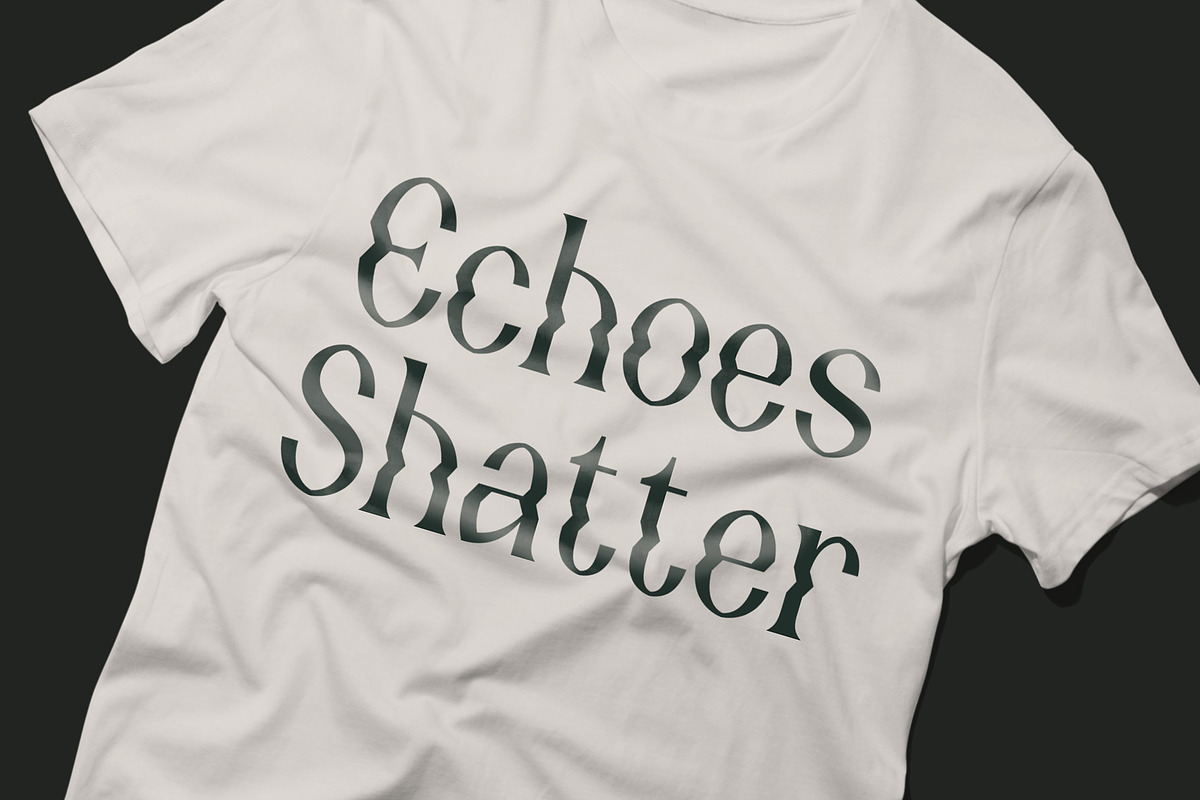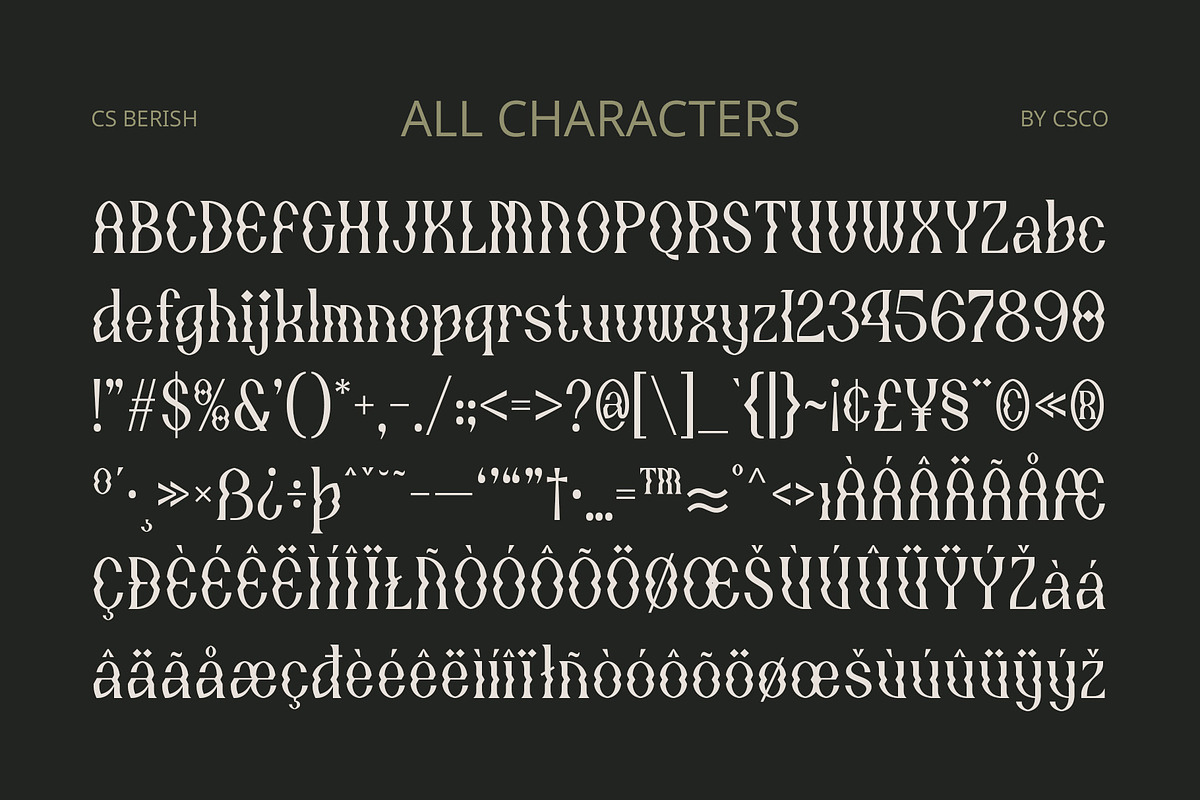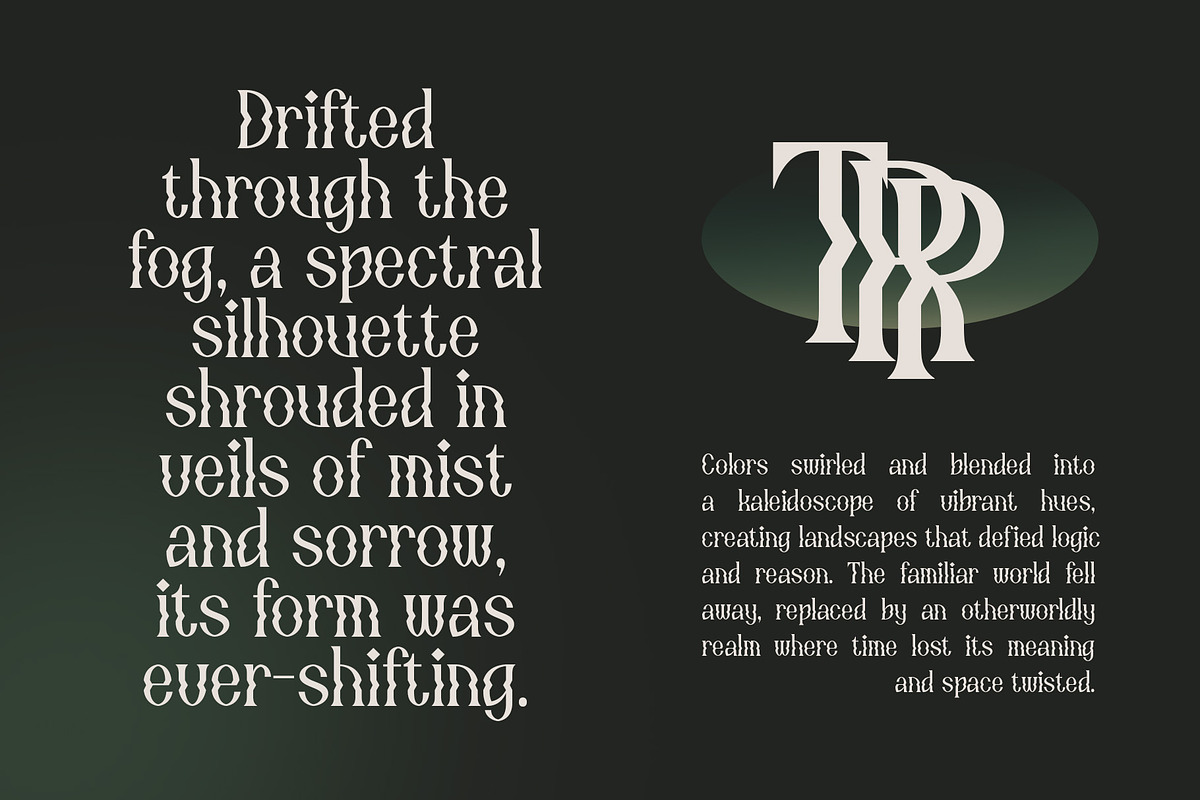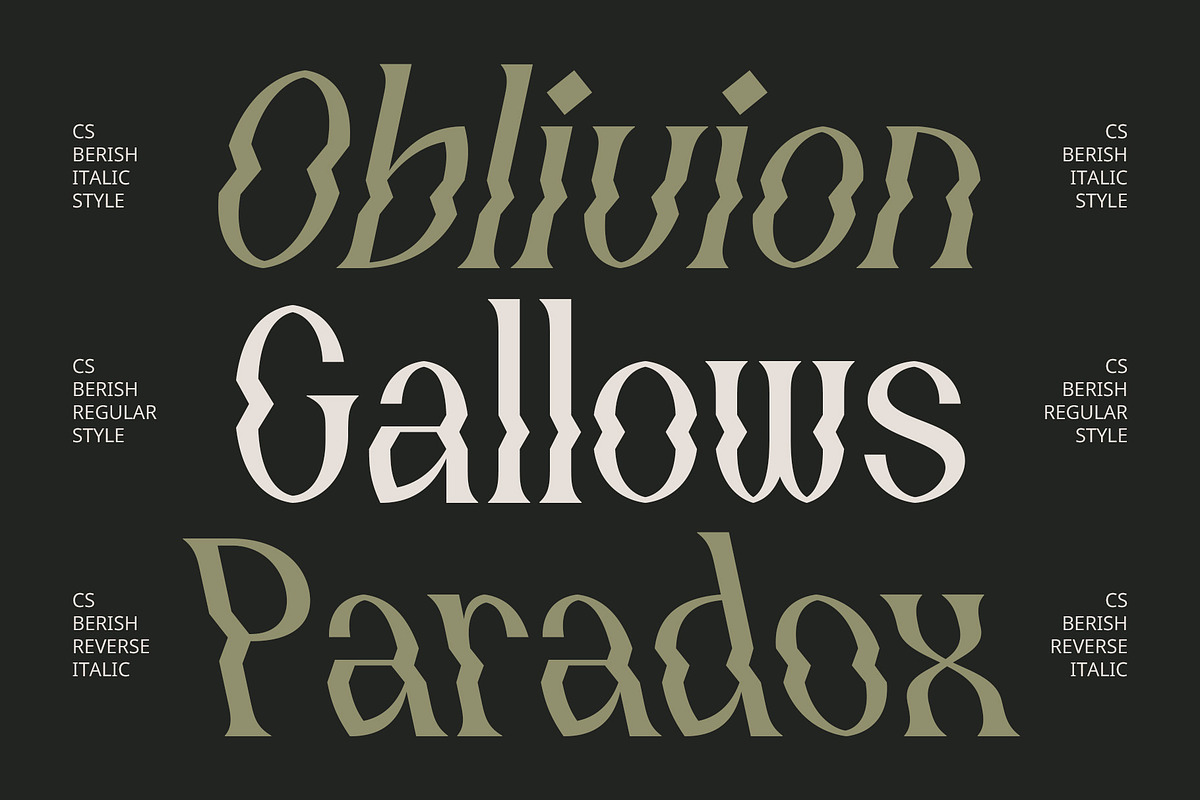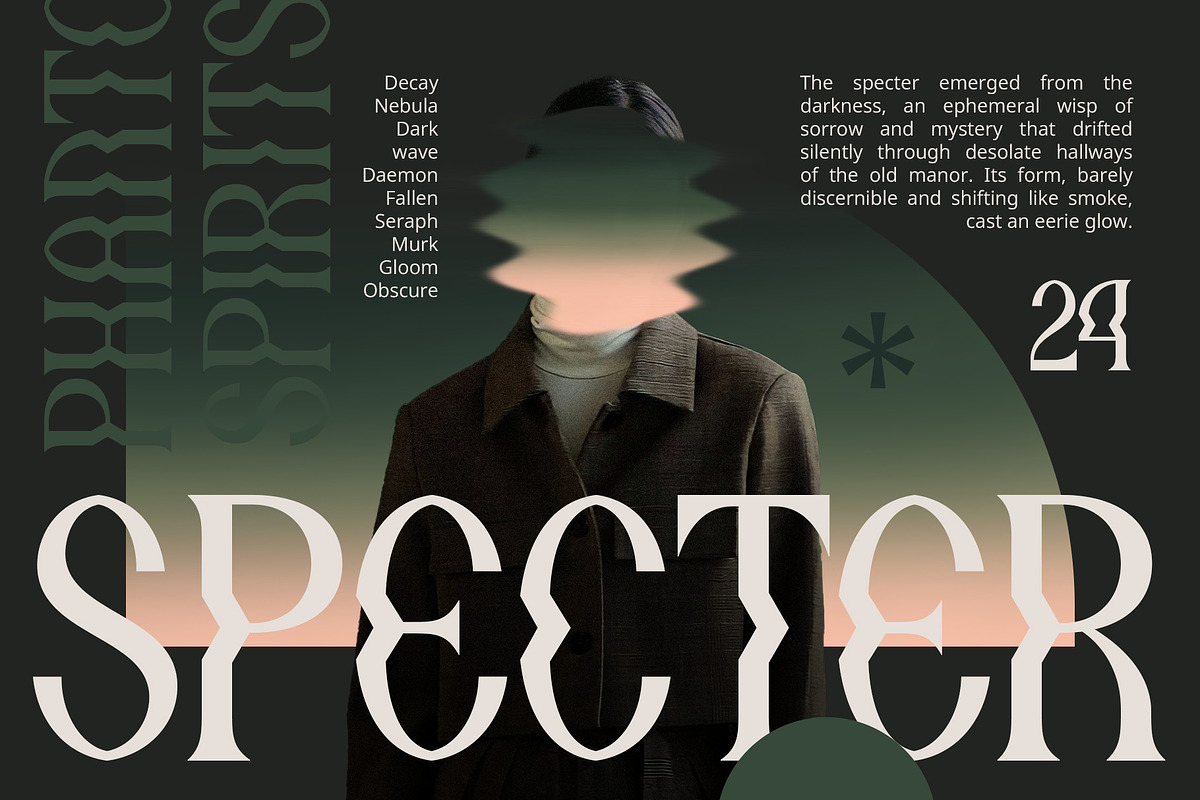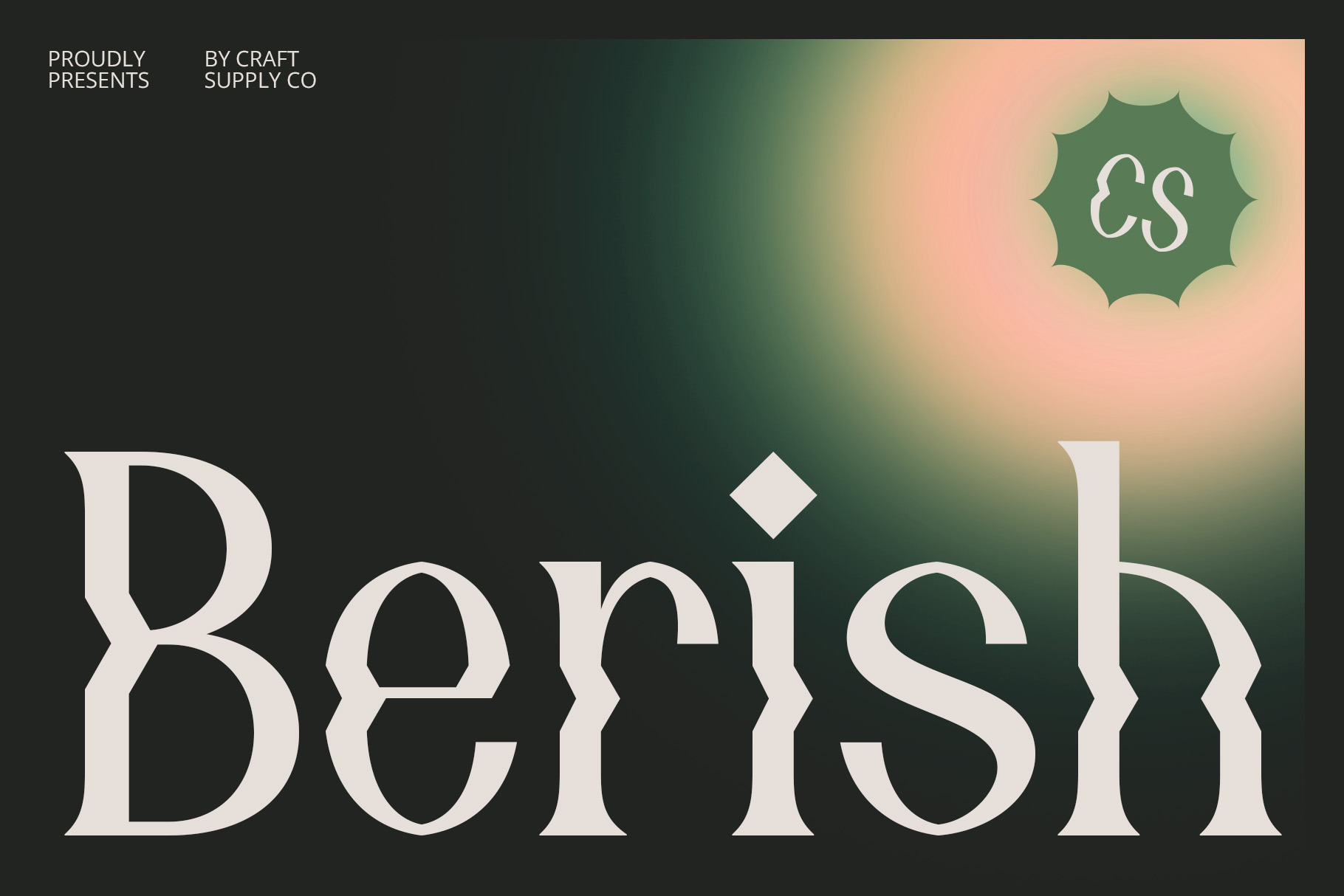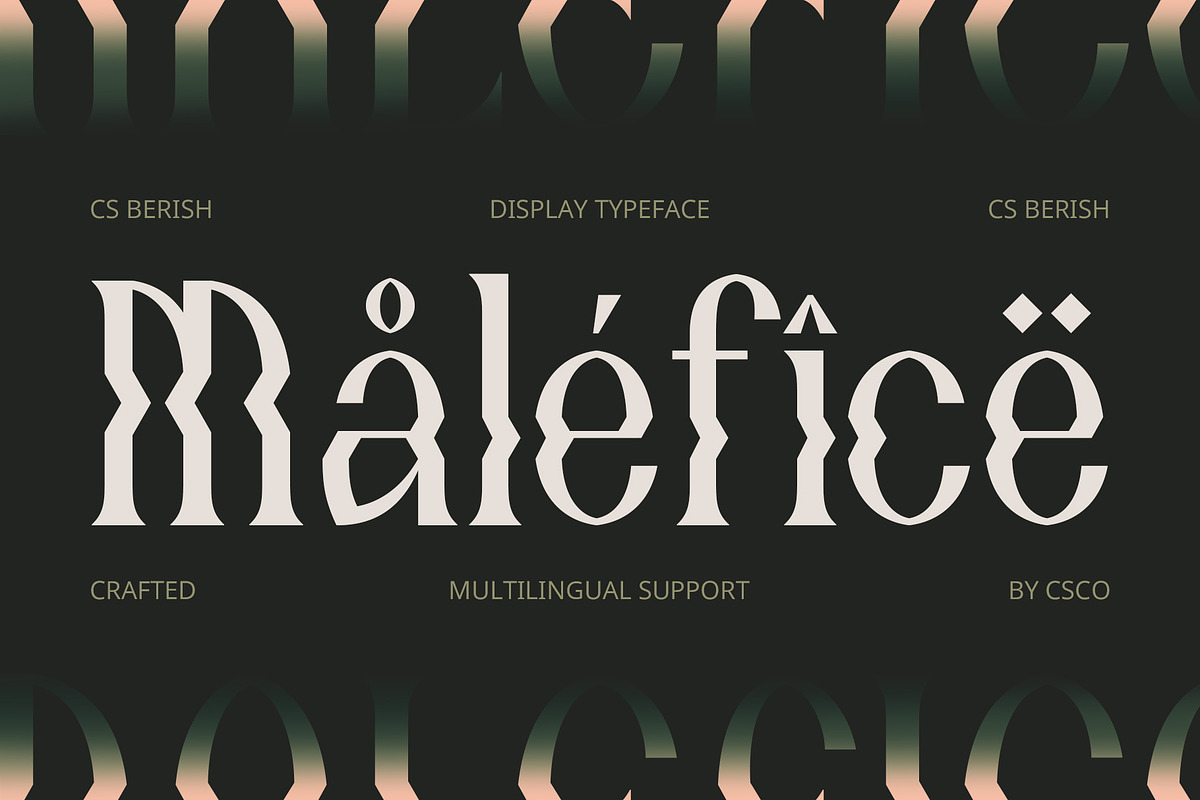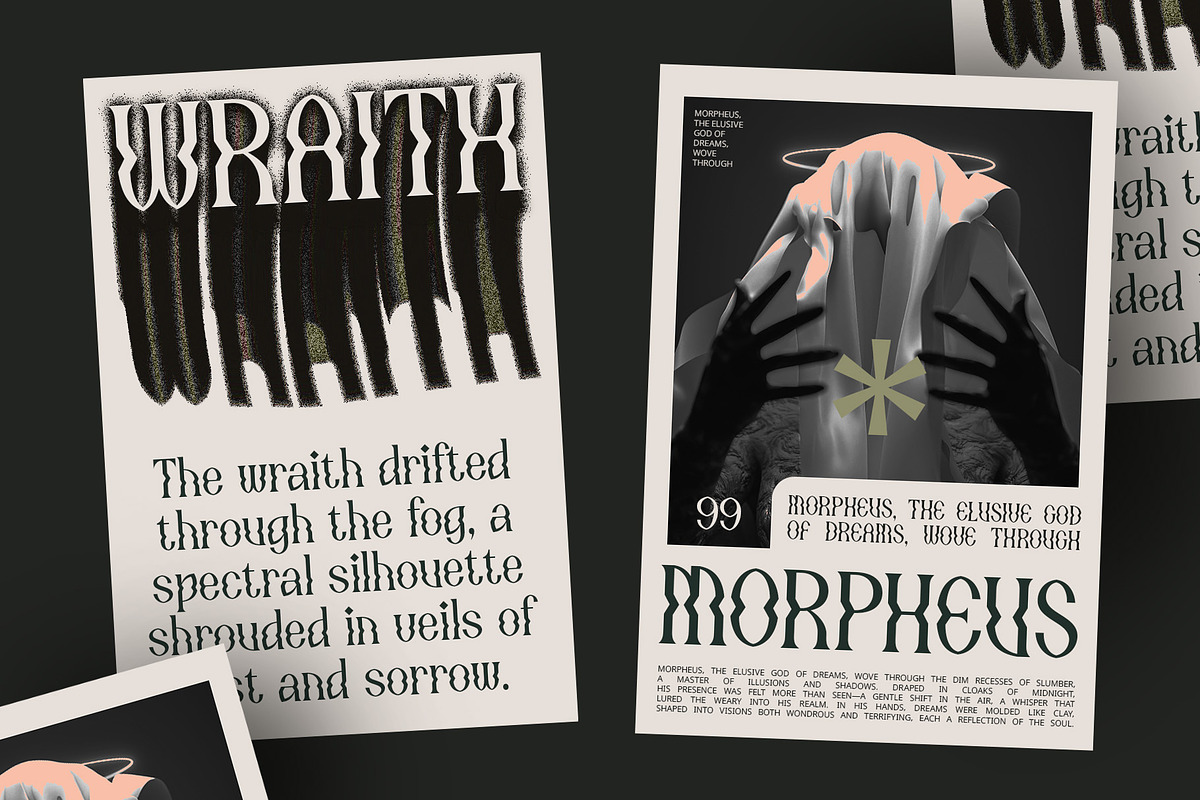
CS Berish – Psychedelic Font
CS Berish – Psychedelic Display Serif Font
Modern Psychedelic Meets Classic Serif CS Berish is a display serif font that masterfully blends classic serif elements with bold, contemporary psychedelic shapes. This unique combination features letterforms with curved, swirling, and undulating designs, creating dynamic and eye-catching visual effects. The classic serif details provide a touch of timeless sophistication, while the psychedelic influences introduce a striking, modern flair.
Dynamic and Unique Visual Effects The psychedelic design of CS Berish brings a vibrant and avant-garde quality to your projects. Its swirling shapes and bold forms create a captivating visual experience, ensuring that your text stands out with a unique and energetic presence. This font is perfect for projects that require a blend of traditional elegance and innovative style.
Ideal for Creative and Contemporary Designs CS Berish is ideal for designs that aim to highlight both uniqueness and contemporary flair. Whether used for posters, event materials, or branding, this font’s distinctive blend of classic serif structure and modern psychedelic design ensures a creative and memorable impact. It’s perfect for projects that seek to convey a cutting-edge, avant-garde aesthetic with a touch of sophistication.